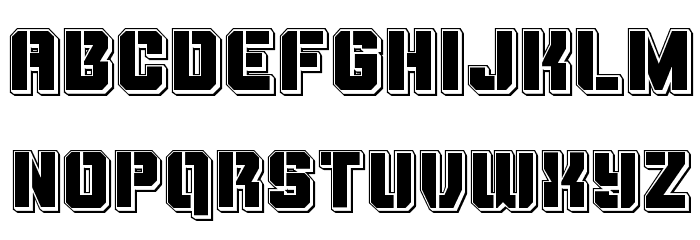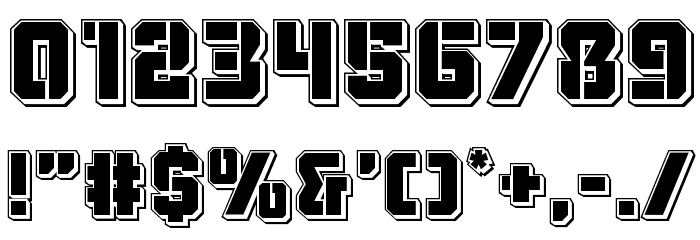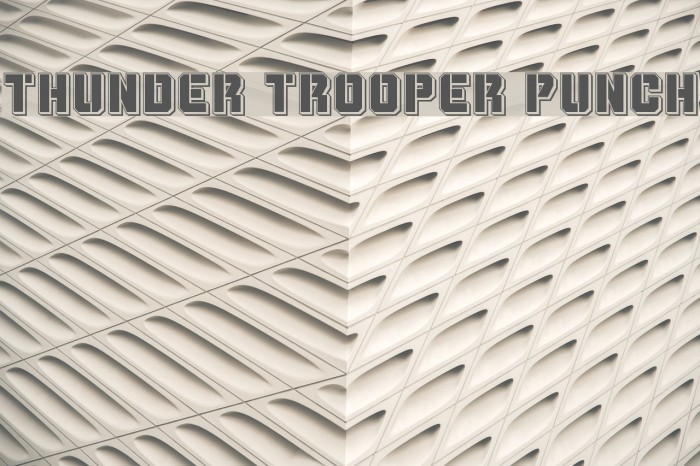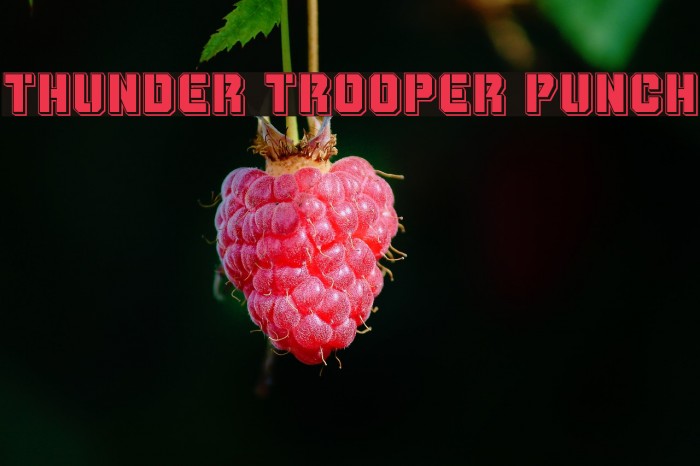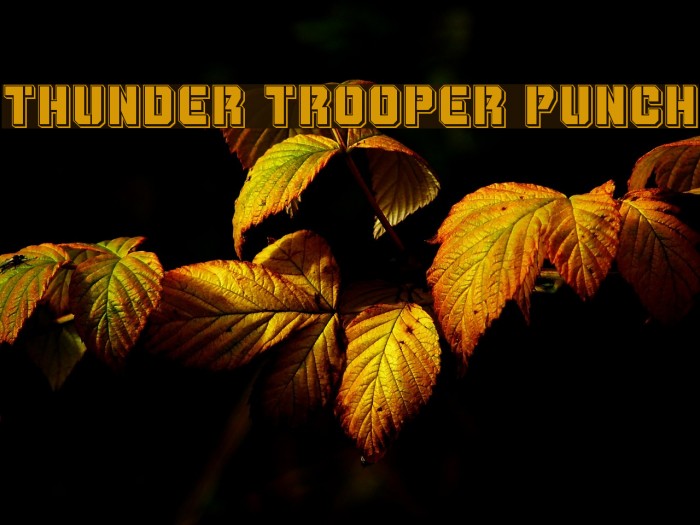
Thunder Trooper Punch Font
This font features a bold, geometric design with a strong, impactful presence. The characters are outlined, creating a three-dimensional effect that adds depth and visual interest. Each letter and number is crafted with sharp angles and straight lines, giving it a futuristic and industrial feel. The font's style is reminiscent of sci-fi and action themes, making it ideal for projects that require a bold statement. The uppercase and lowercase letters maintain a consistent style, ensuring uniformity across different text applications. The special characters are designed to match the overall aesthetic, providing a cohesive look.
A bold, geometric font with a futuristic, industrial style.
- Proposed Projects: Ideal for sci-fi posters, video game titles, action movie graphics, and branding for tech companies.
- Overall Style: Futuristic, Industrial